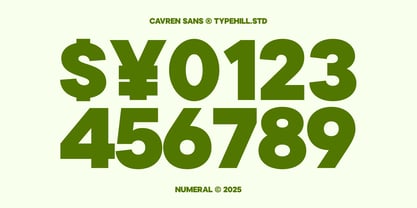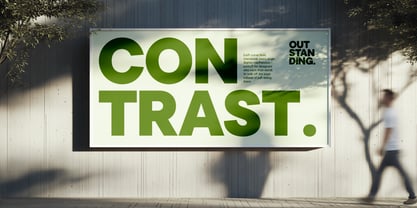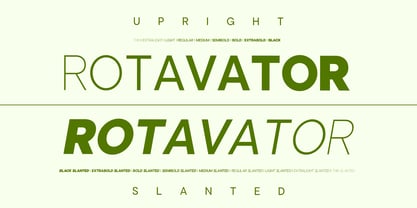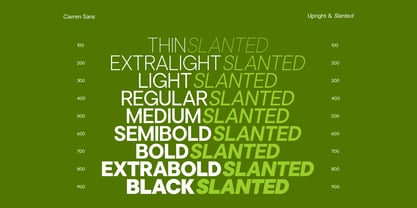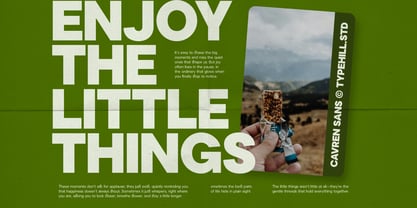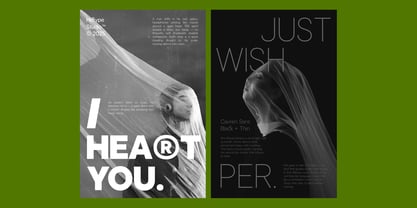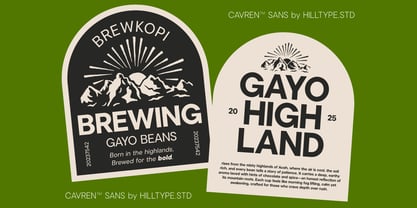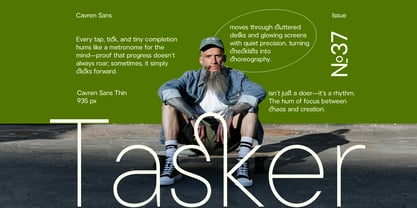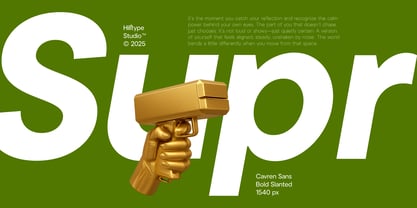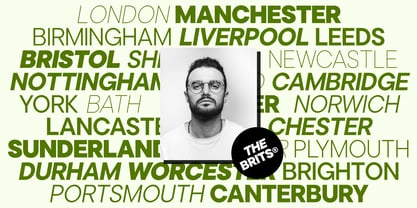
Cavren Sans
The Cavren Sans Font Family was designed by Teuku Fahruddin and published by Typehill Studio. Cavren Sans contains 19 styles and family package options. More about this family
Cavren Sans is a contemporary sans serif font family designed for professional use. With its geometric yet humanist construction, this typeface offers excellent legibility and a modern aesthetic for logos, headlines, websites, and print materials. Ideal for designers who need a clean and balanced font for branding, corporate identity, packaging, and digital design. Cavren Sans includes 18 styles with matching obliques, OpenType features, multilingual support, and smooth letterforms. Use Cavren Sans for projects that demand a timeless, minimal, and confident visual tone.